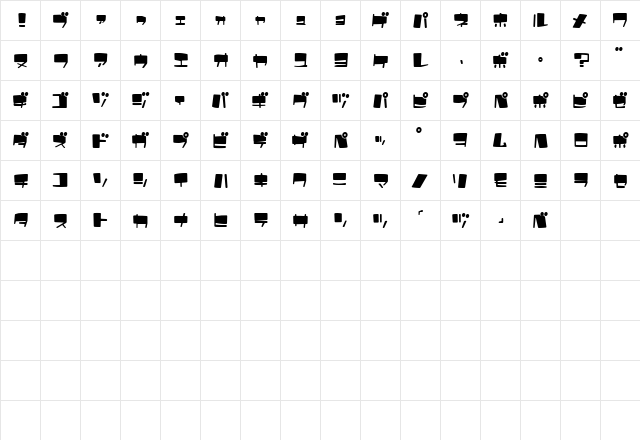
UltraComickatakana Regular
Design Context for UltraComickatakana Typeface
UltraComickatakana has an approachable, lighthearted character — its loose, expressive forms are well-suited to children's content, casual branding, and fun-first design.
Font Pairing: Pairs well with a rounded or humanist sans for body copy, maintaining the friendly tone without relying on UltraComickatakana to carry extended reading.
Pro Tip: Use UltraComickatakana at larger display sizes where its expressive character can land. Pair with a clean, simple sans for body copy to maintain readability.